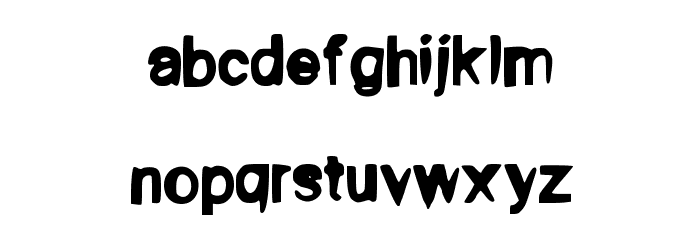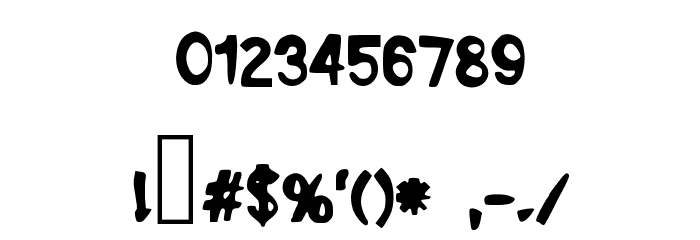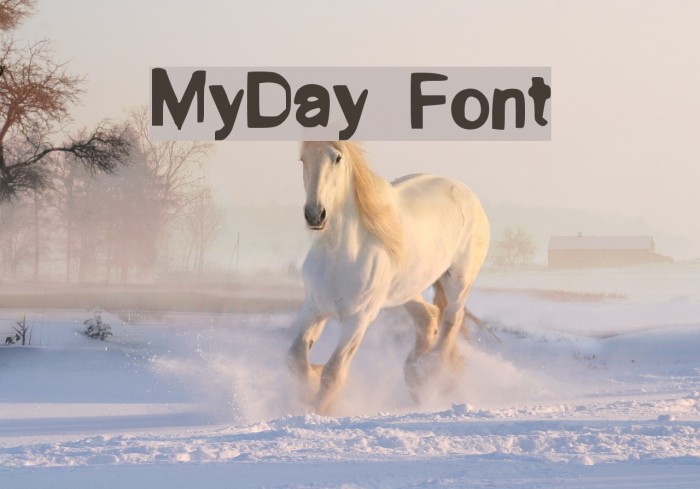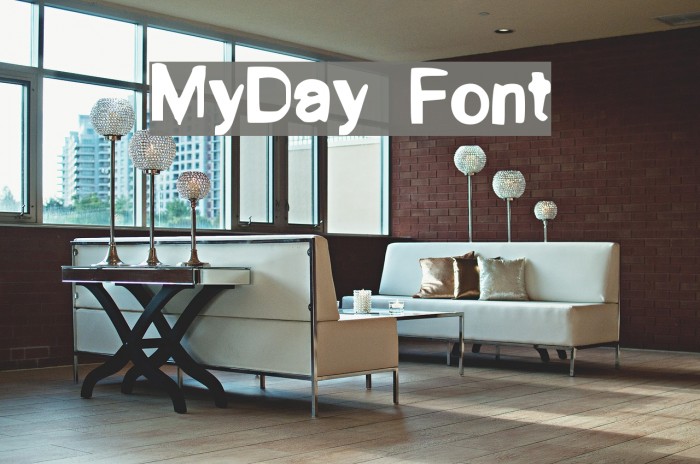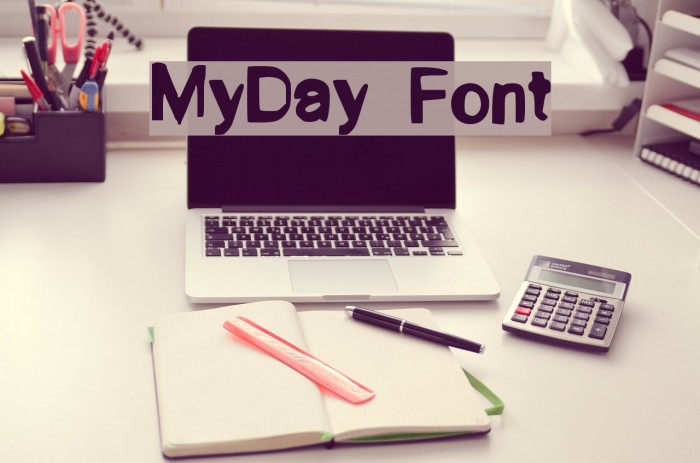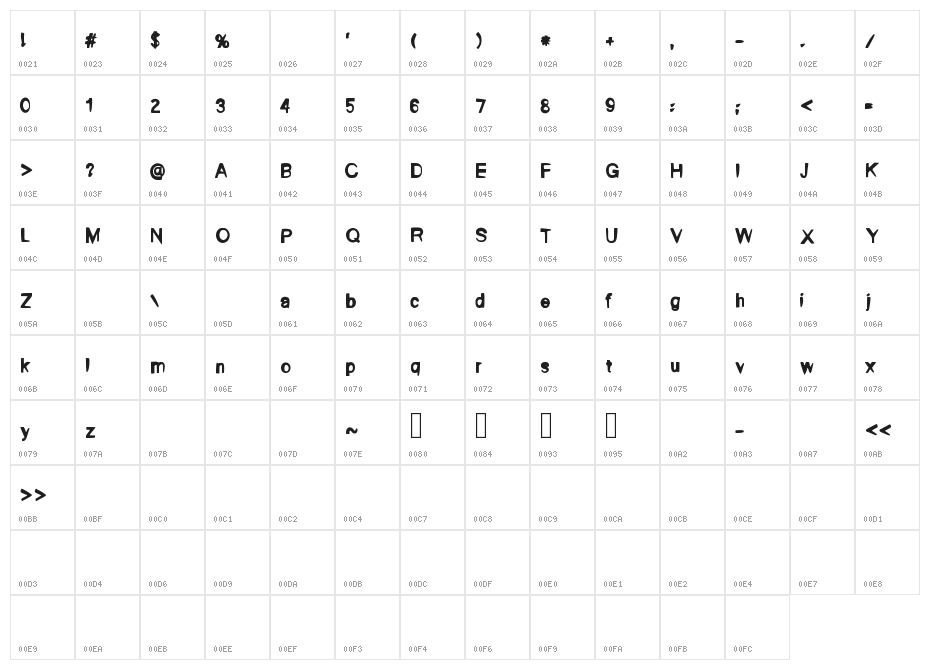
MyDay Font
This playful and bold font features a unique, slightly irregular design that gives it a hand-drawn appearance. The characters are rounded with varying stroke thickness, adding a whimsical and friendly feel. The uppercase letters are bold and prominent, while the lowercase letters maintain a consistent style with a slightly smaller size. Numbers and special characters are designed to match the overall playful aesthetic, making this font suitable for creative and informal projects. Its distinct style makes it stand out, perfect for capturing attention.
A playful, bold font with a hand-drawn, whimsical style.
- Proposed Projects: Ideal for children's books, playful branding, greeting cards, and creative posters.
- Overall Style: Playful, Whimsical